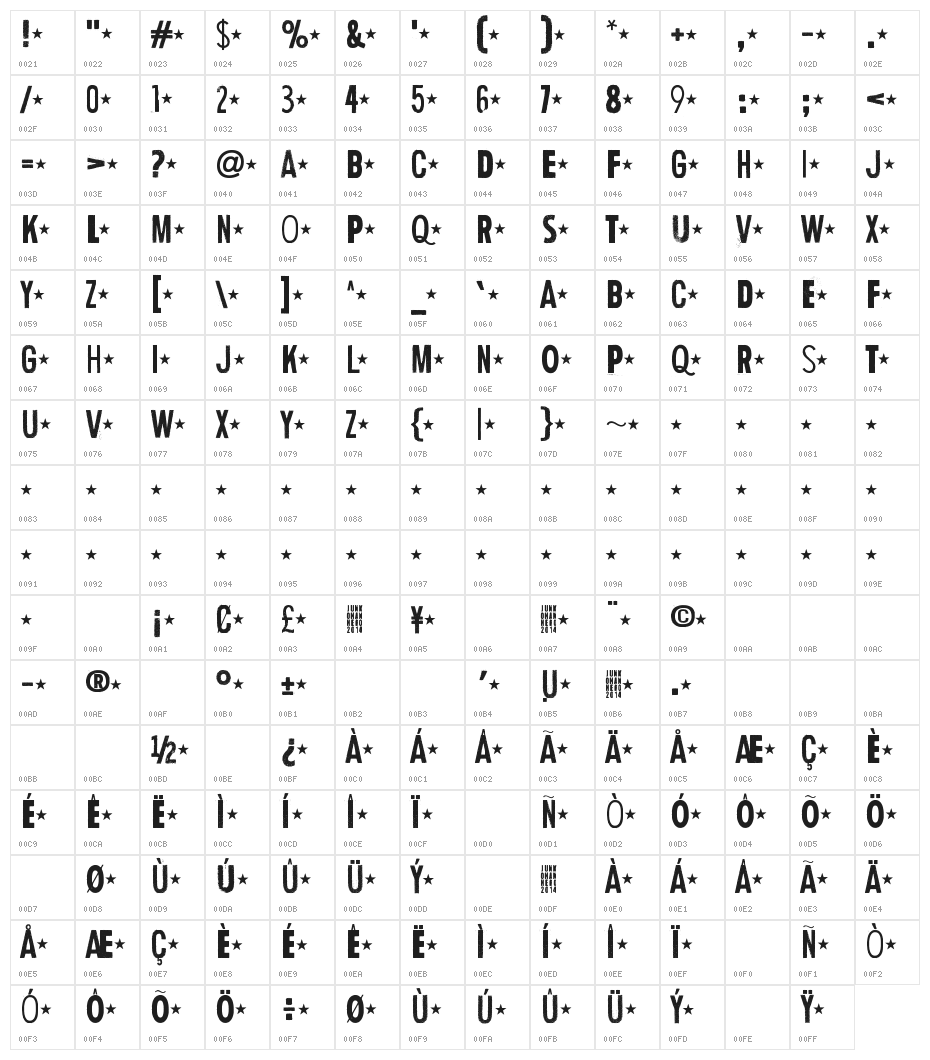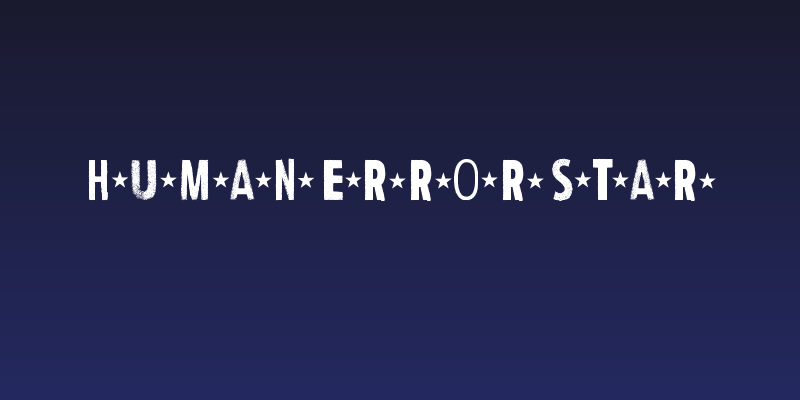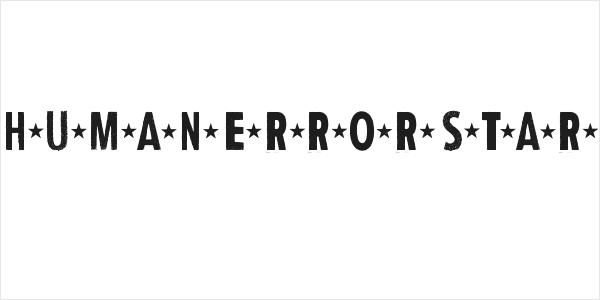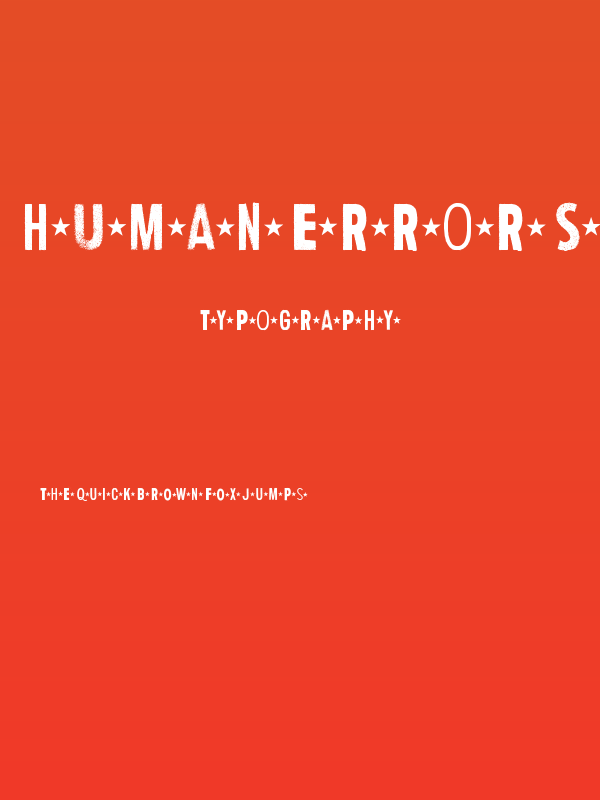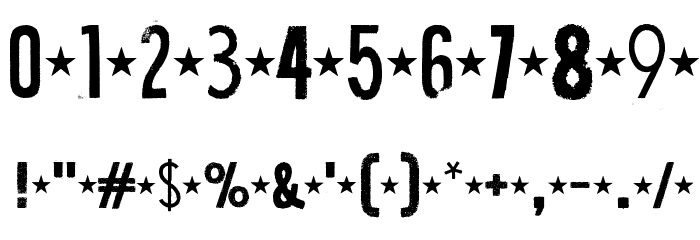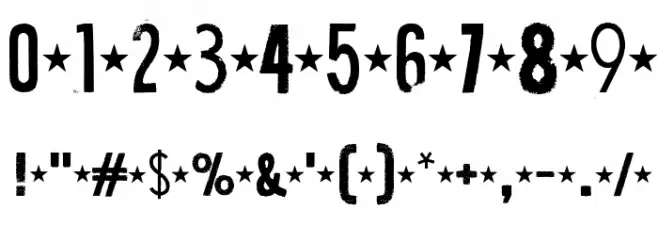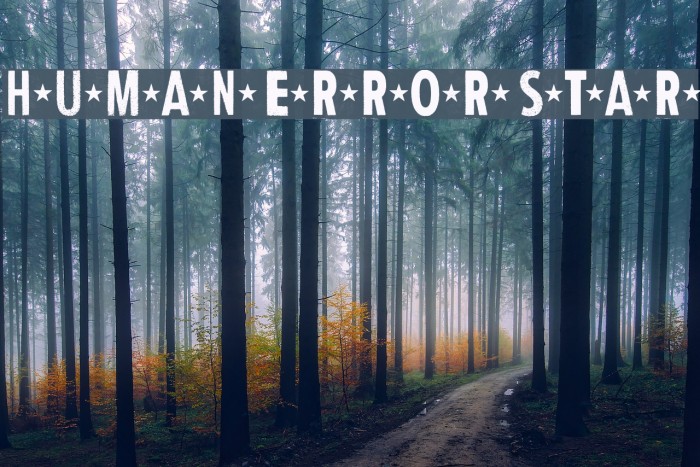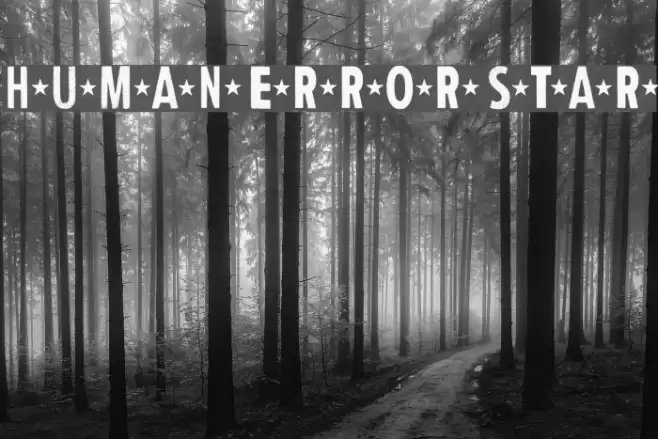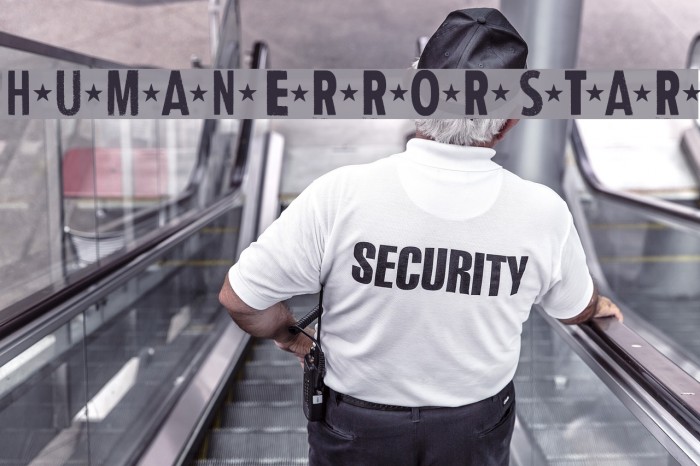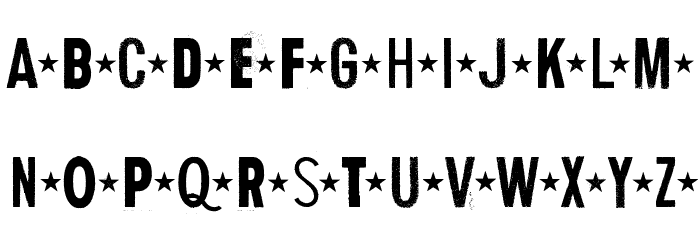
Human Error Star Font
Human Error Star Description
This font features bold, uppercase and lowercase letters with a distinct star motif integrated between each character. The design is reminiscent of a stencil style, giving it a rugged, industrial feel. The characters are evenly spaced, with a consistent width that maintains readability. The numbers and special characters follow the same stylistic approach, ensuring uniformity across all elements. The font's boldness and unique star embellishments make it stand out, ideal for projects that require a strong visual impact. Its decorative nature suggests a playful yet assertive tone, suitable for creative and eye-catching designs.
| Proposed Projects | Ideal for posters, event flyers, branding, and any design needing a bold, decorative touch. |